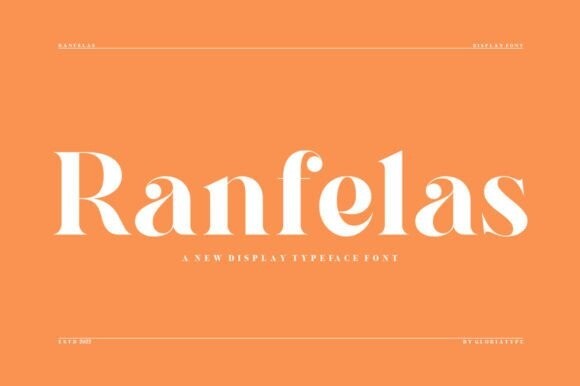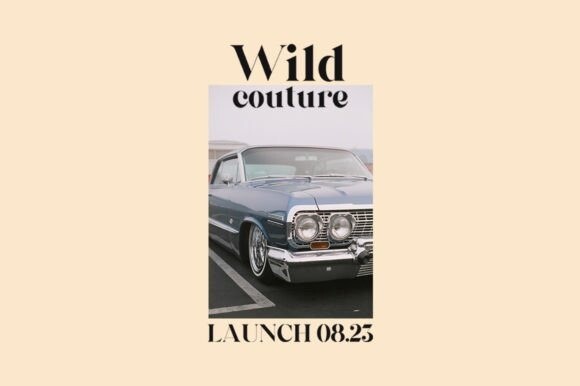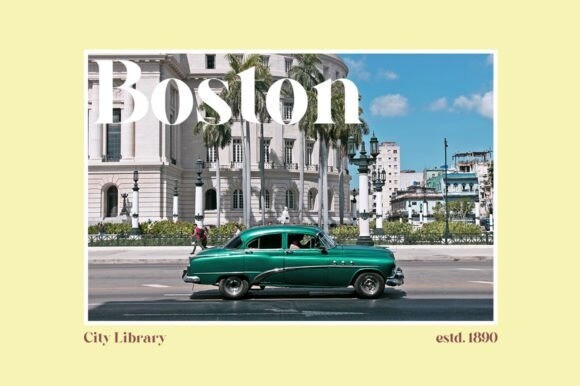
Ranfelas Font
Ranfelas is a cool and stylish serif font featuring its own unique style and modern look. This typeface is perfect for an elegant & luxury logo, book or movie title, fashion brand, magazine, clothes, lettering, quotes, and more.